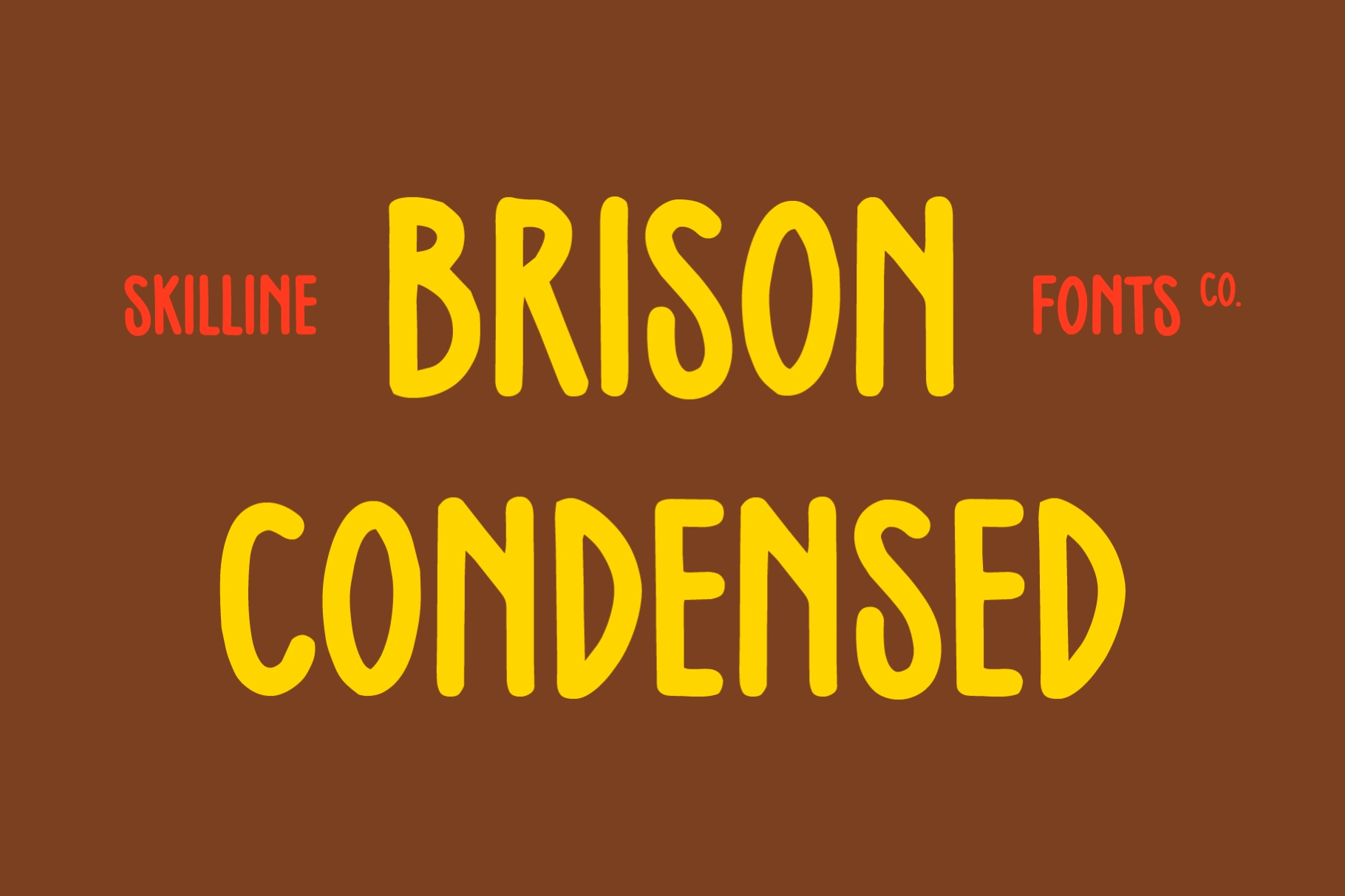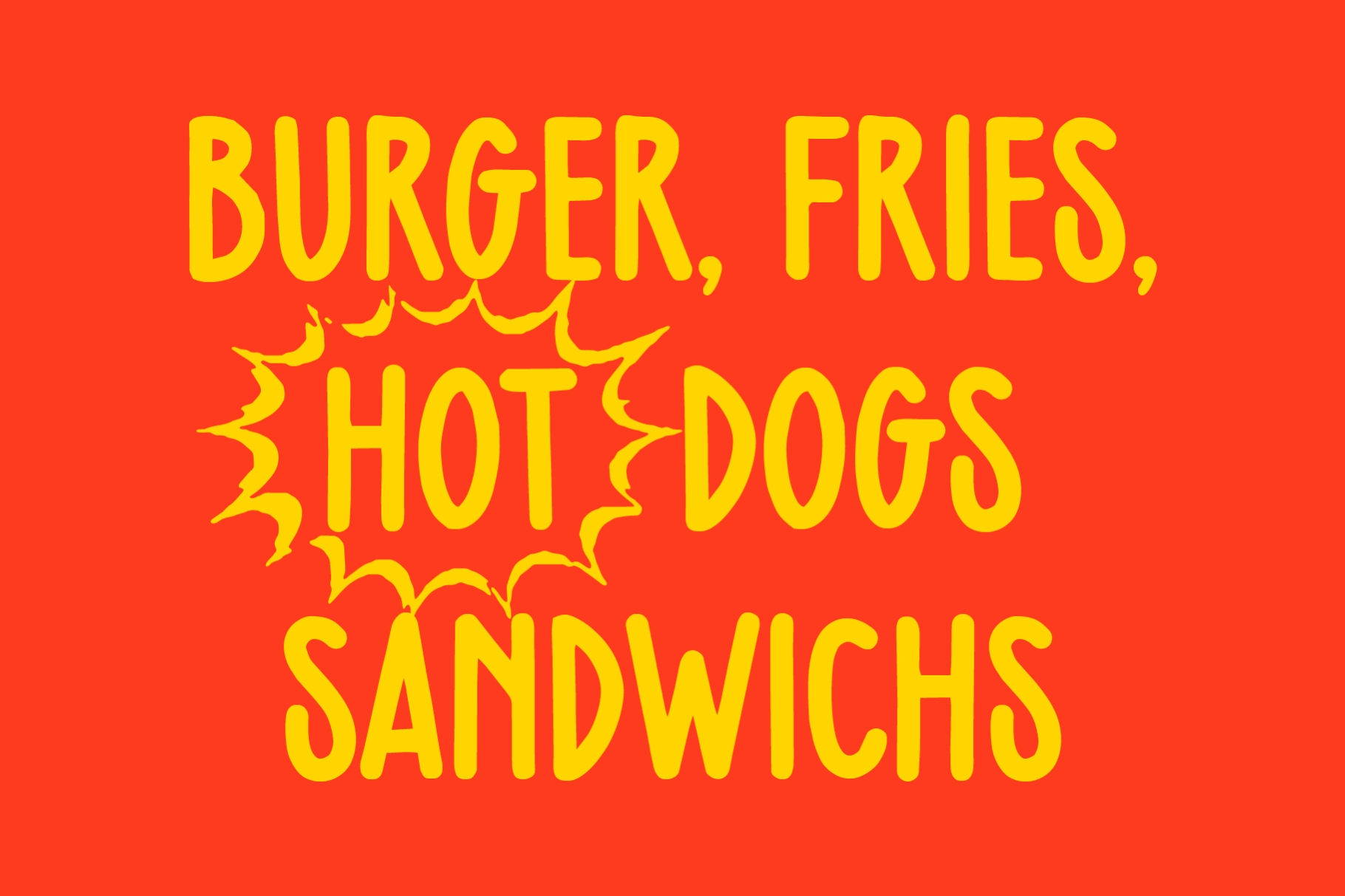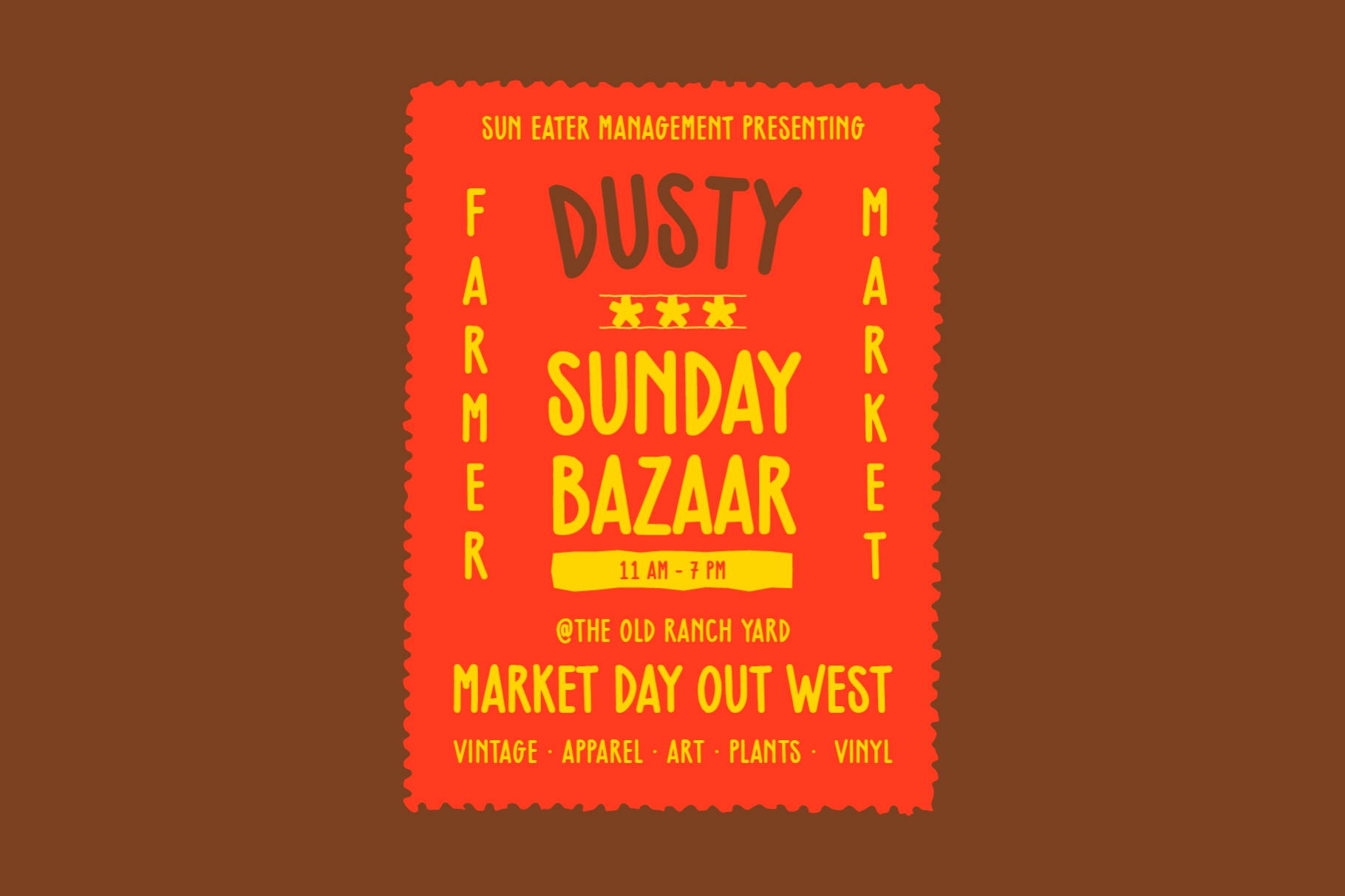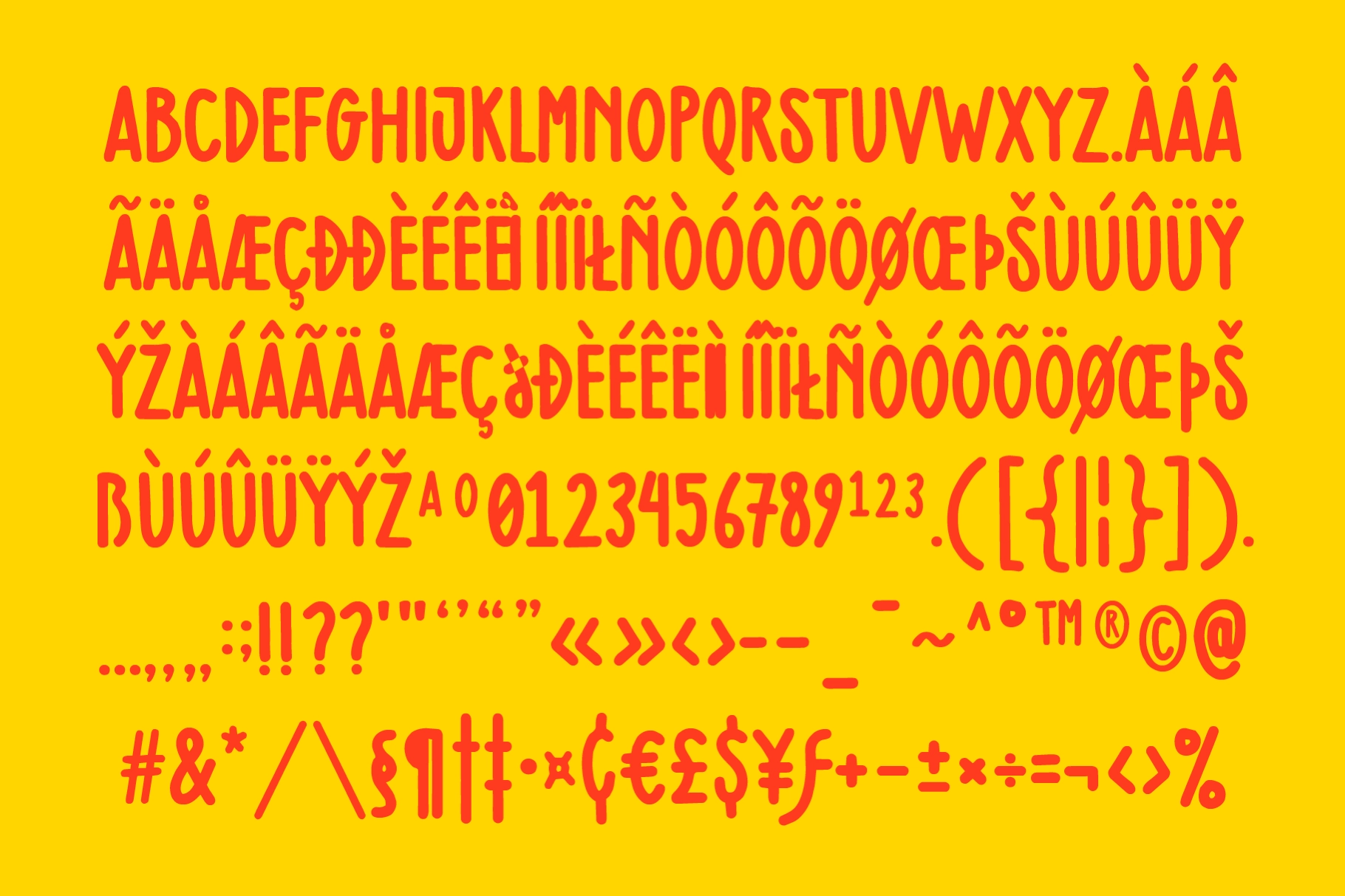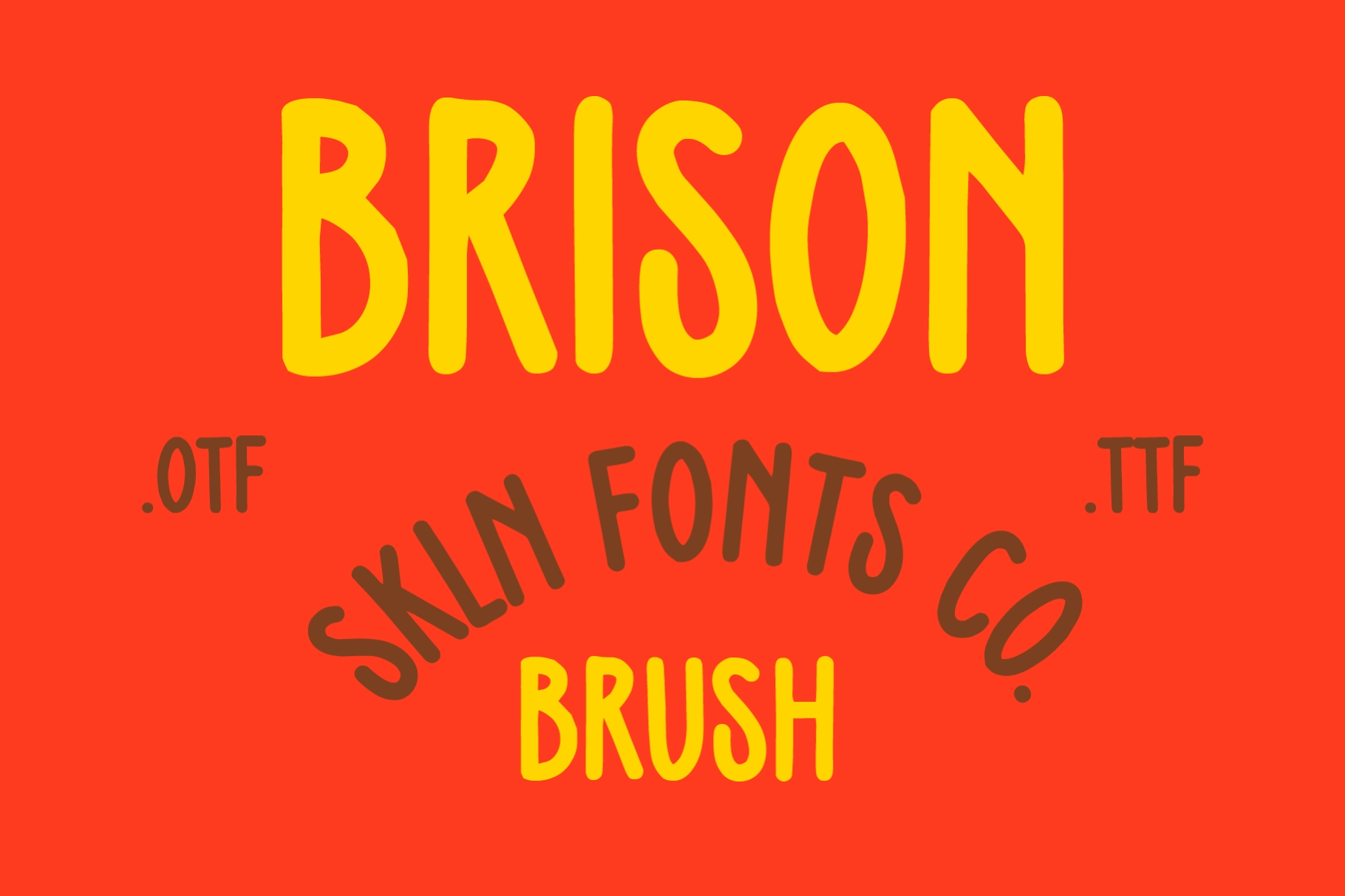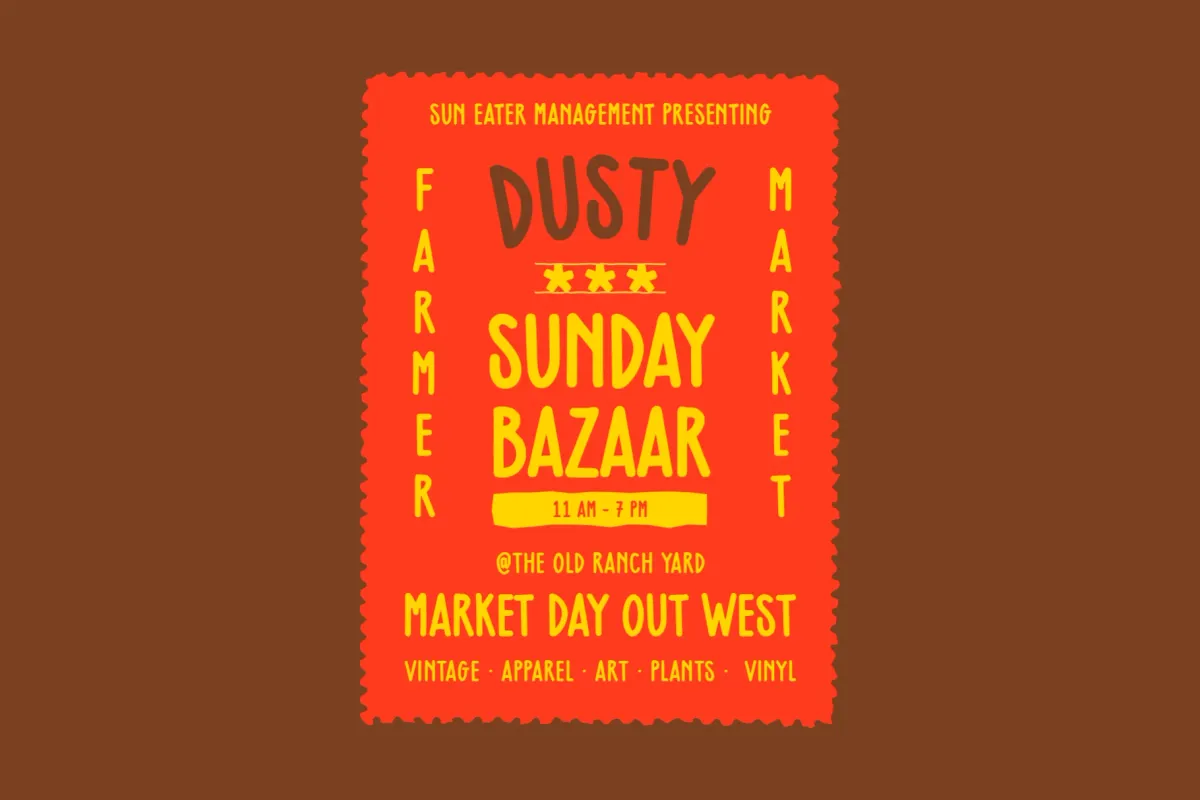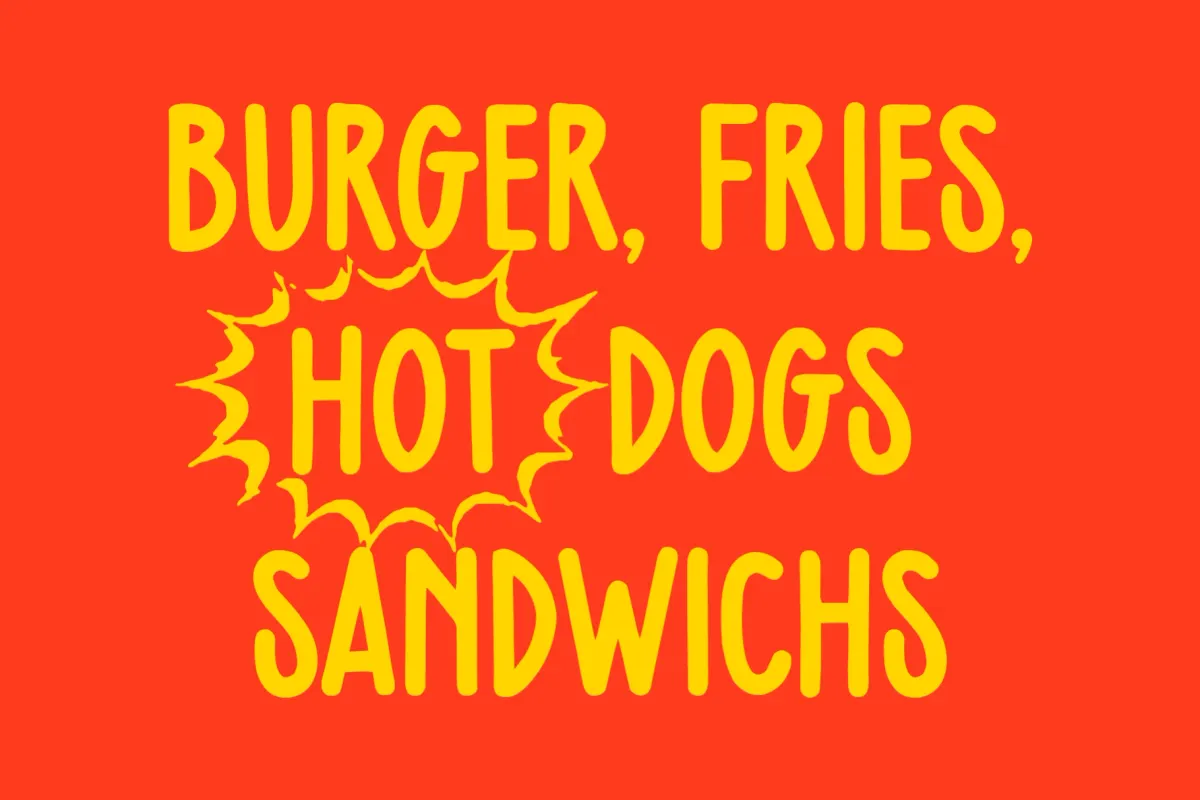
SFC Brison Condensed - Tall Display Font
SFC Brison Condensed
This condensed display typeface is tall, bold, and packed with retro western character . Narrow letterforms, rounded brush edges, and handmade irregularities give headlines a punchy food-signage look, from burger joints and hot dog stands to ranch posters with a sunburnt sense of humor.
Brison Condensed is ideal for smokehouse branding, diner menus, taco shop graphics, festival posters, food truck signage, hot sauce labels, ranch logos, western merch, sticker packs, album covers, roadside ads, packaging, social media headlines, and more. Its vertical proportions save space while keeping the message loud, clear, and full of vintage Americana bite.